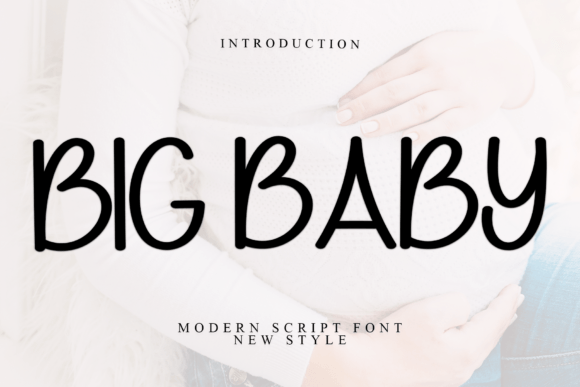
The Big Baby Font: A Playful and Friendly Addition to Your Design Toolkit
I’ll never forget the time I was working on a children’s party invitation project, and I just couldn’t find the right font to capture the playful and cheerful vibe I was going for. The client wanted something that would appeal to kids and parents alike, but everything I tried seemed either too boring or too over-the-top. That’s when I stumbled upon the Big Baby font, and it instantly became the perfect fit. In this article, I’ll share my experience with this wonderful font, its features, and how you can make the most of it in your designs.
An Honest Review of Big Baby Font
What I Love About Big Baby Font ✨
- 💕 The playful, handwritten style that gives off a friendly and fun vibe
- 👍 Rounded letters that add a cheerful touch to any design
- 🎉 Perfect for kids’ projects, invitations, and any design that needs a warm, approachable feel
- ✅ Easy to read, even in larger sizes
While Big Baby font is an excellent choice for many projects, there are a few things to keep in mind:
- 🤔 It may not be the best fit for very formal or professional designs, as its playful nature might not be suitable for those contexts
- ⚠️ Some of the letters might appear a bit too rounded or soft for certain design applications
One of the exciting aspects of Big Baby font is its support for OpenType features and glyphs. These features allow you to add more variety and creativity to your text. For example:
- Ligatures: Combine certain letters for a more artistic look
- Stylistic alternates: Swap out letters for different versions
- Glyphs: Access additional characters and symbols to enhance your design
The Backstory of Big Baby Font
Big Baby font was designed with the intention of creating a friendly, approachable typeface that would bring joy to designs. The designer aimed to craft a font that felt both playful and warm, making it perfect for projects that require a personal touch. While the exact details of the design process are not publicly known, it’s clear that Big Baby font has been carefully crafted to meet the needs of designers and crafters.
Q: Does Big Baby font support OpenType features?
A: Yes, Big Baby font supports OpenType features, including ligatures, stylistic alternates, and glyphs.
Q: Can I use Big Baby font for kids’ projects?
A: Absolutely! Big Baby font is perfect for kids’ projects, such as party invitations, educational materials, and more.